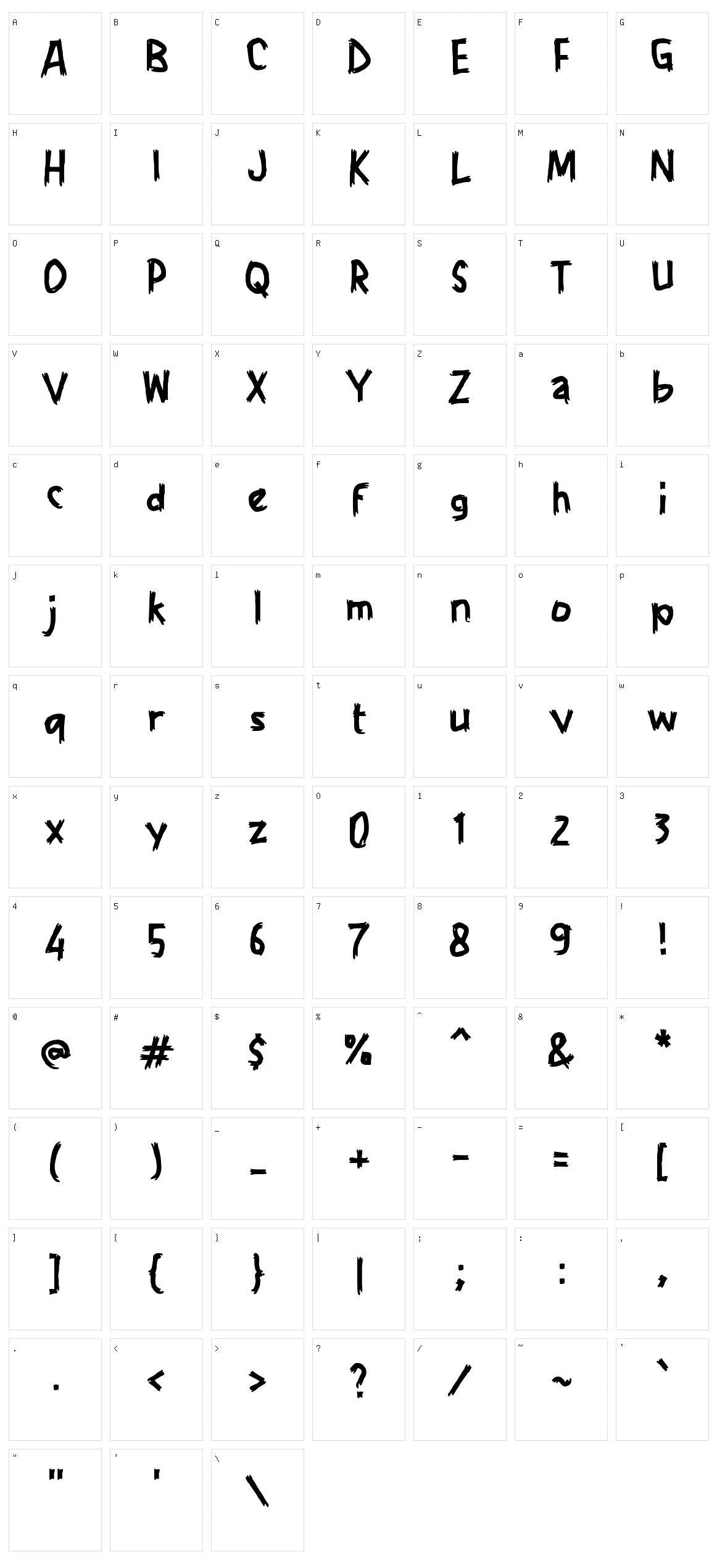
The free font i Ighty Mighty is carefully designed by wep, showcasing a thoughtful balance of creativity and usability and falls under the Horror font style. When you download the ZIP file, it contains only 20.79 KB of font files, making it lightweight and quick to download. Please review the license details below to understand permitted usage and distribution rights. If license information is not available, we recommend using this font for personal projects only or contacting the author directly for commercial usage permissions.